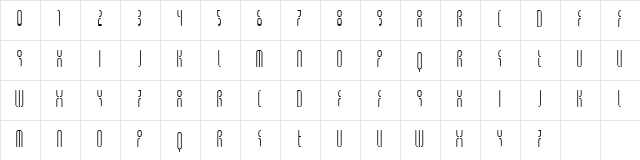
Gen3000 Thin
Design Context for Gen3000 Typeface
Gen3000 is a composed and adaptable typeface that performs quietly and consistently across a wide range of design contexts. Its slender proportions lend an understated elegance to any composition.
Pro Tip: Pair Gen3000 with a font of contrasting weight or personality to build a more expressive typographic hierarchy.